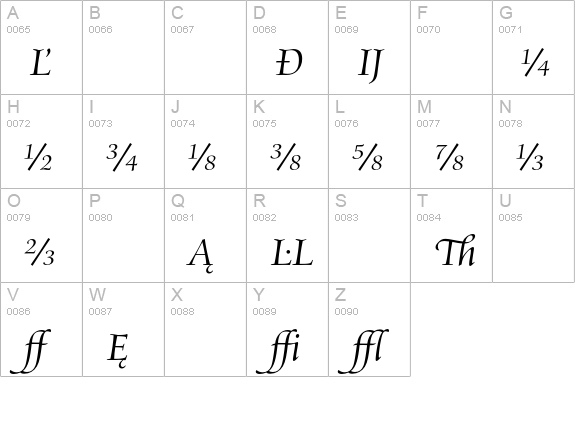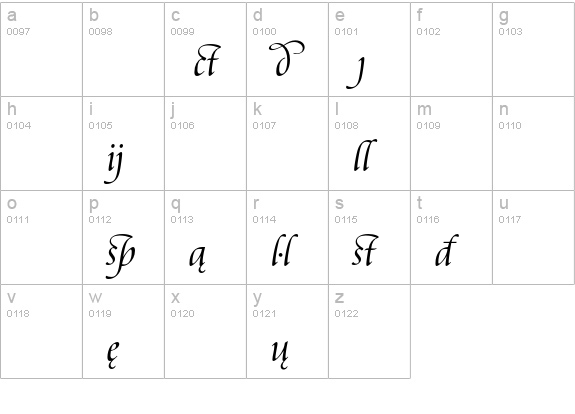
Cataneo Light Extension is a refined, elegant variant in the Cataneo typeface family \xE2\x80\x94 well suited to elegant body text, refined sub-headings, and luxury branding.
Cataneo Light Extension is a modern and elegant font that exudes sophistication and style. With its sleek lines and clean design, this typeface is perfect for adding a touch of class to any project. The extended version of Cataneo Light offers a unique twist on the original font, providing added versatility and visual appeal. What sets Cataneo Light Extension apart is not only its striking aesthetics but also its accessibility. This font is available for free download at FontsMarket.com, making it a valuable resource for designers, creatives, and anyone looking to enhance their visual communication. Whether you're working on a branding project, website design, or print materials, Cataneo Light Extension is sure to make a lasting impression with its refined look and timeless appeal. Embrace the beauty and versatility of Cataneo Light Extension, and elevate your designs with this exquisite font that is both stylish and free for you to use. Download it today and unleash your creativity with this stunning typeface.